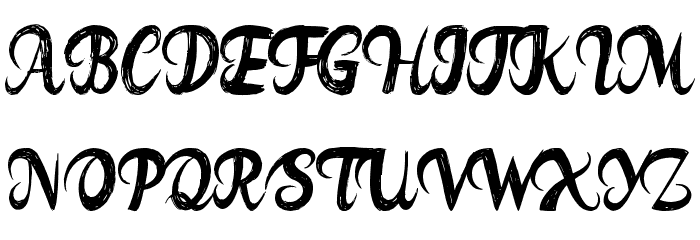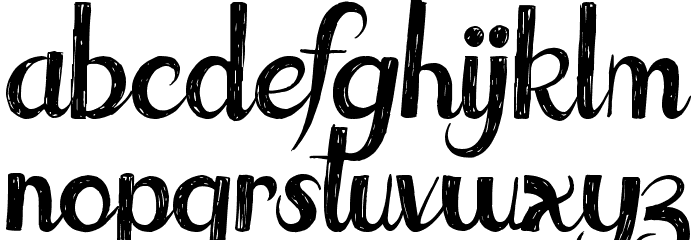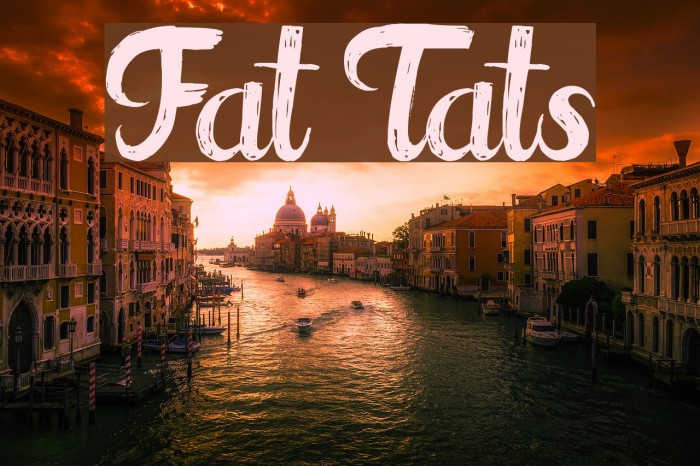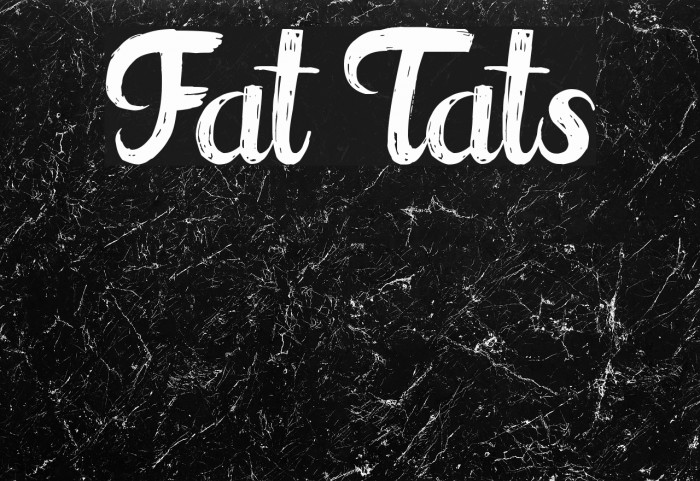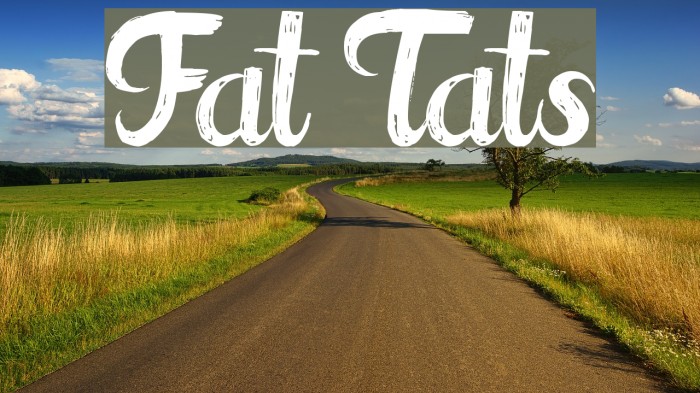
Fat Tats Font
This font features a bold, brush-like style with a hand-drawn appearance. The letters are characterized by their thick strokes and slightly uneven edges, giving them a dynamic and artistic feel. The uppercase letters are particularly striking, with a flowing, cursive quality that adds a sense of movement and flair. The lowercase letters maintain this style, with some characters featuring unique loops and curves that enhance the font's expressive nature. The overall design is reminiscent of calligraphy, yet with a modern twist, making it suitable for creative and eye-catching designs.
A bold, brush-style font with a dynamic, hand-drawn appearance.
- Proposed Projects: Ideal for tattoo designs, artistic posters, branding for creative businesses, and any project requiring a bold, expressive typeface.
- Overall Style: Modern, Artistic